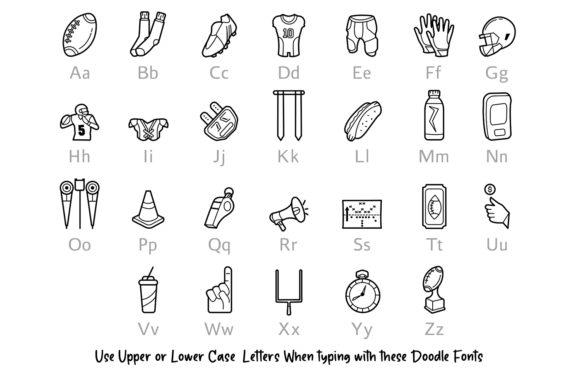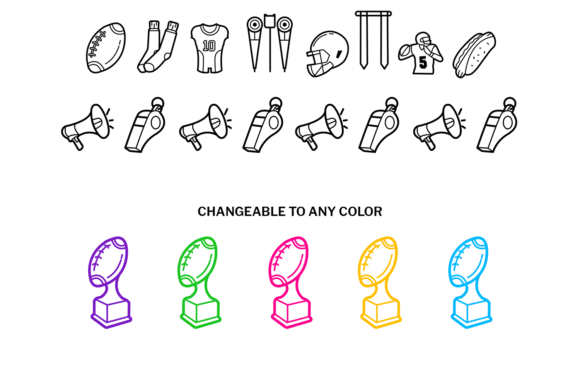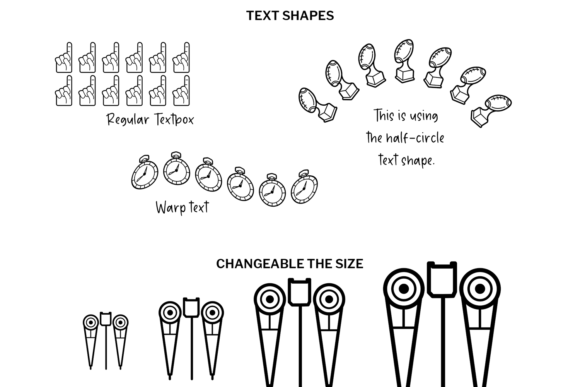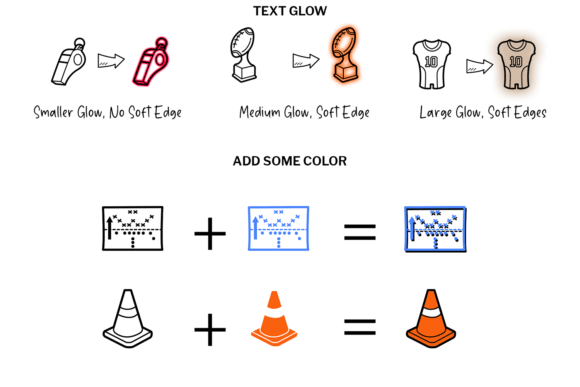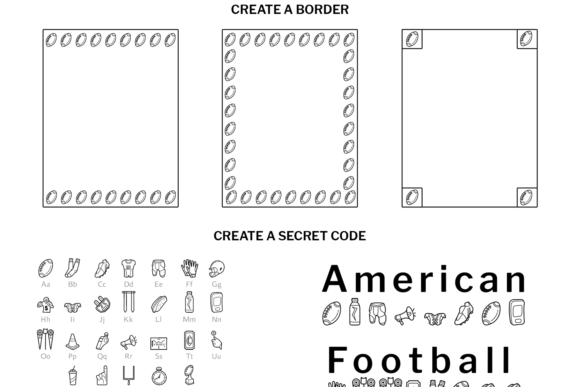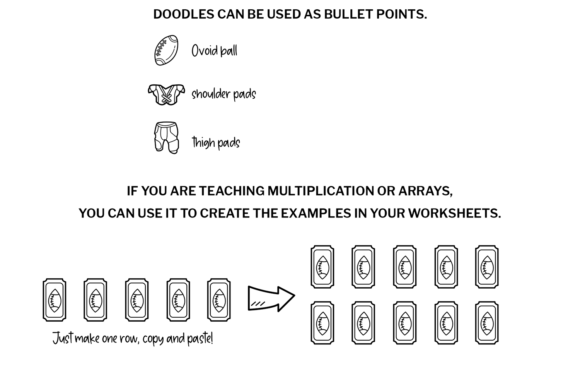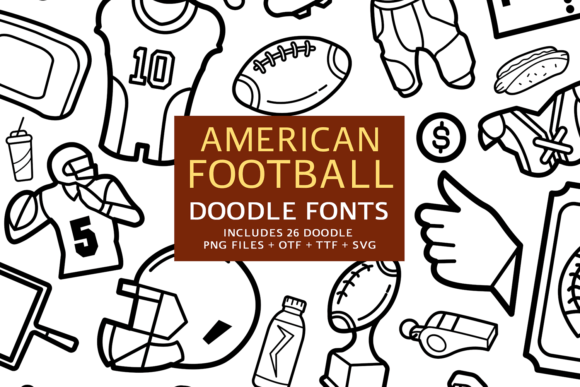
American Football Doodle Font: A Charming Dingbats Font for Playful Designs
Are you a designer or crafter looking for a unique and playful font to add a touch of cuteness to your designs? Look no further than the American Football Doodle Font! This charming dingbats font features a collection of delightful illustrations that are perfect for creating eye-catching designs for various projects, including children’s books, greeting cards, and social media posts.
What is American Football Doodle Font?
American Football Doodle Font is a dingbats font that consists of a set of playful illustrations, including American football-themed icons, such as footballs, helmets, and goalposts, as well as other fun and quirky elements. The font is designed to be highly versatile and can be used for a wide range of design projects, from digital crafts to print materials.
Key Features of American Football Doodle Font
- Playful illustrations: The font features a collection of charming illustrations that are sure to add a touch of whimsy to your designs.
- American football theme: The font is perfect for designers who want to create sports-themed designs, particularly those related to American football.
- Dingbats font: The font is a dingbats font, which means that it consists of illustrations rather than traditional letters and numbers.
- Highly versatile: The font can be used for a wide range of design projects, from digital crafts to print materials.
Uses for American Football Doodle Font
American Football Doodle Font is perfect for designers and crafters who want to create playful and eye-catching designs. Here are some ideas for using this charming font:
- Children’s books: The font is ideal for creating illustrations and designs for children’s books, particularly those with a sports theme.
- Greeting cards: The font can be used to create fun and playful greeting cards for special occasions, such as birthdays and holidays.
- Social media posts: The font is perfect for creating eye-catching social media posts, particularly those related to American football.
- Digital crafts: The font can be used to create a wide range of digital crafts, such as printable art, planners, and organizers.
Tips for Using American Football Doodle Font
Here are some tips for getting the most out of American Football Doodle Font:
- Experiment with different colors: The font is highly versatile and can be used with a wide range of colors to create different effects.
- Combine with other fonts: The font can be combined with other fonts to create interesting and unique designs.
- Use for a variety of design projects: The font can be used for a wide range of design projects, from digital crafts to print materials.
American Football Doodle Font is a charming dingbats font that is perfect for designers and crafters who want to add a touch of cuteness to their designs. With its playful illustrations and highly versatile design, this font is ideal for creating eye-catching designs for a wide range of projects, including children’s books, greeting cards, and social media posts. Whether you’re a professional designer or a crafter, American Football Doodle Font is a great addition to your font collection.
So why not give American Football Doodle Font a try? With its unique and playful illustrations, it’s sure to add a touch of whimsy to your designs and help you stand out from the crowd.